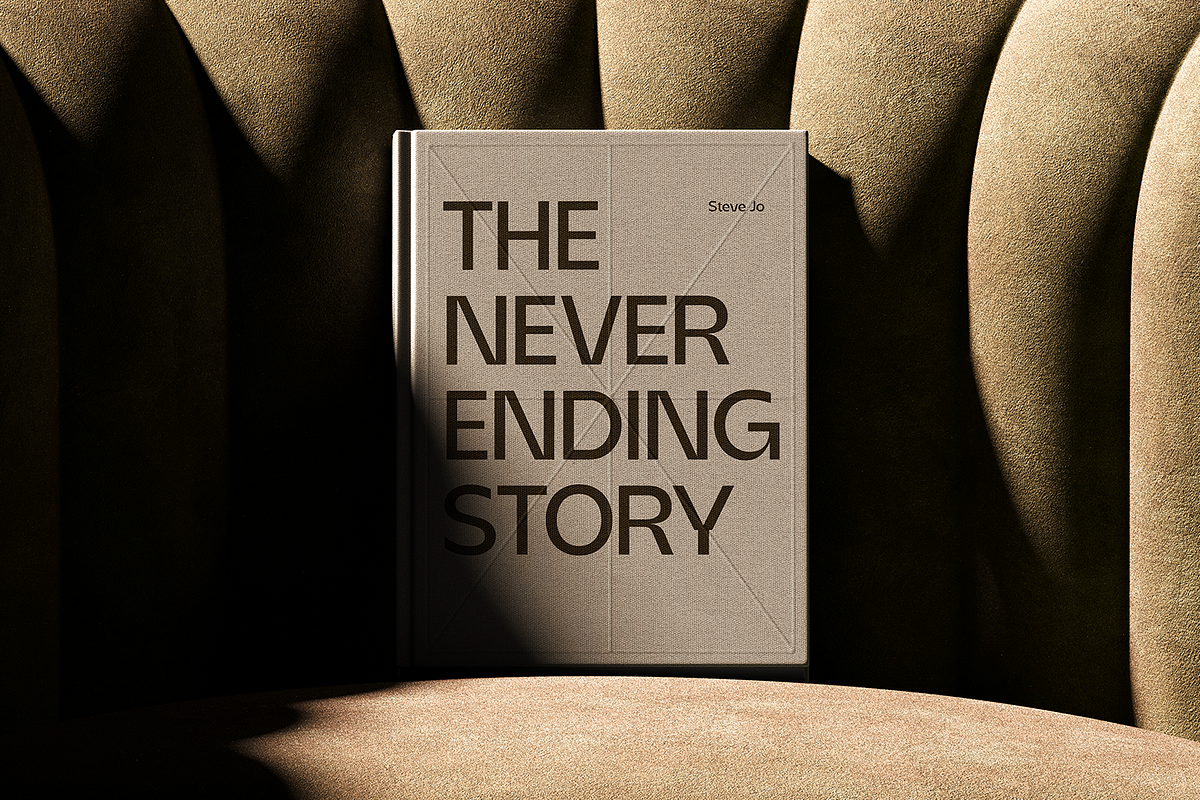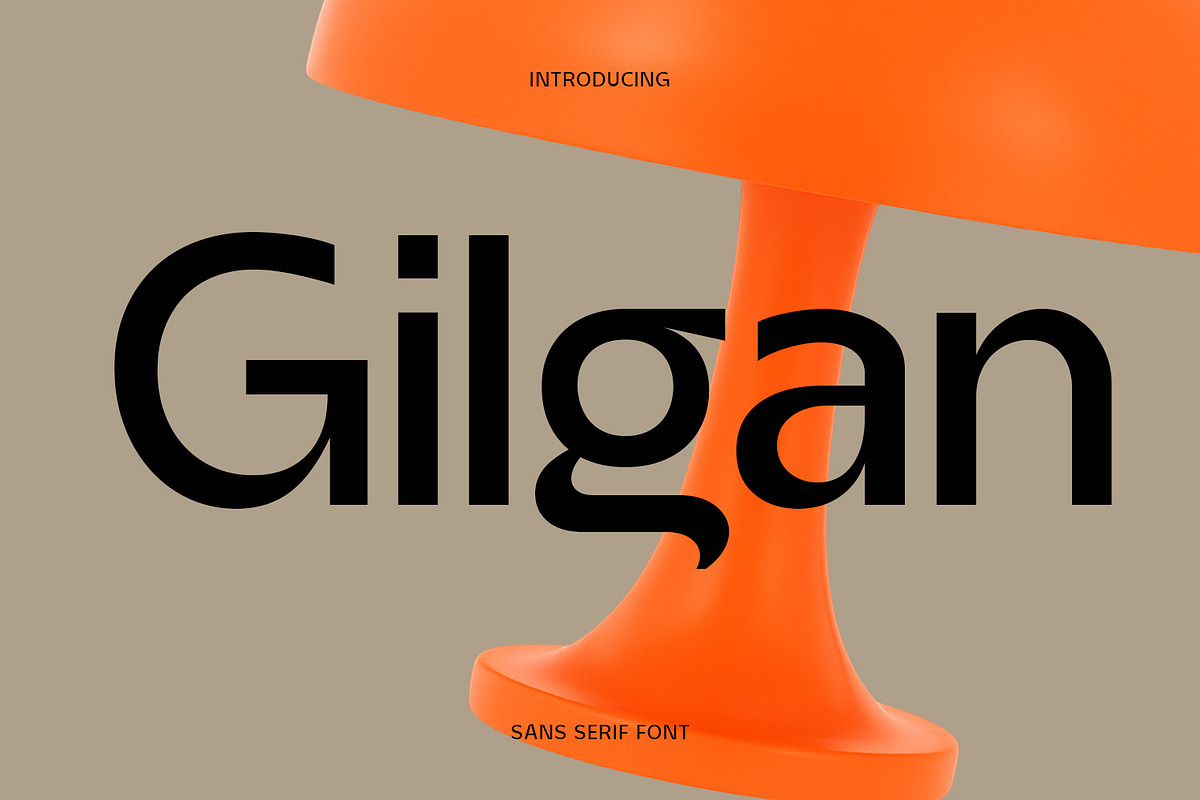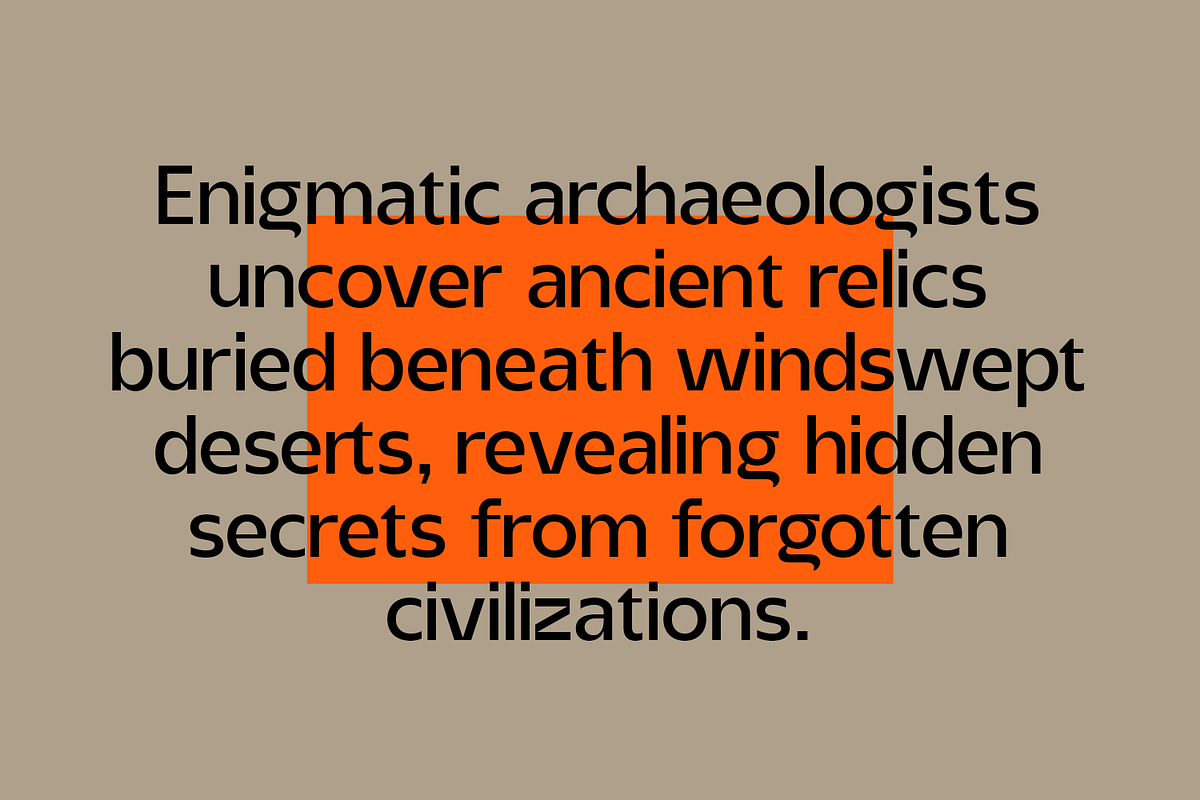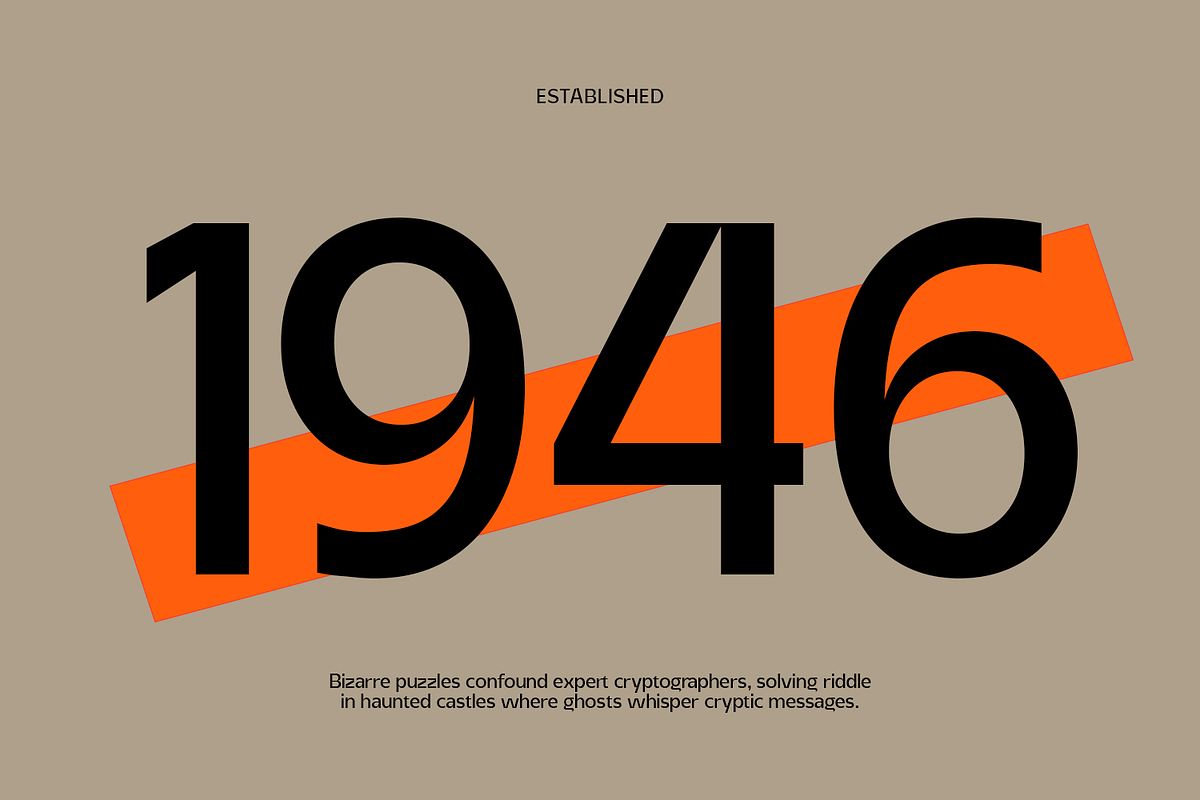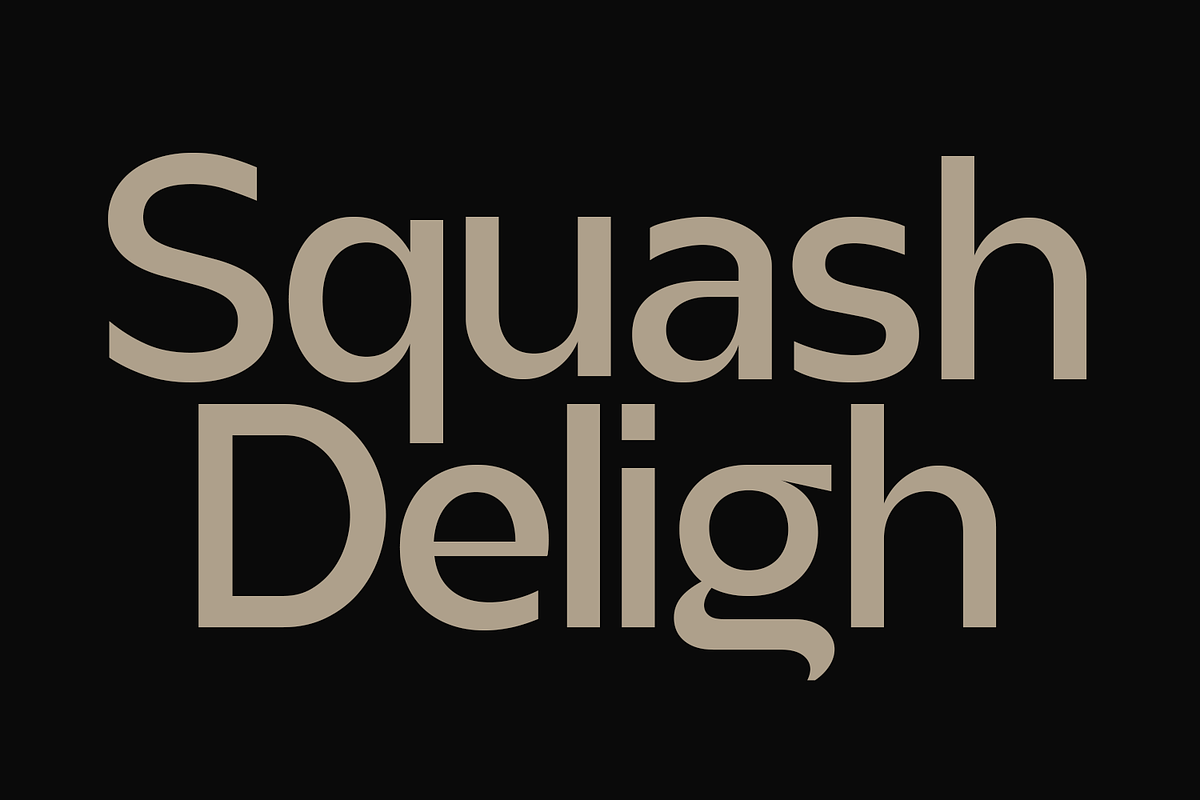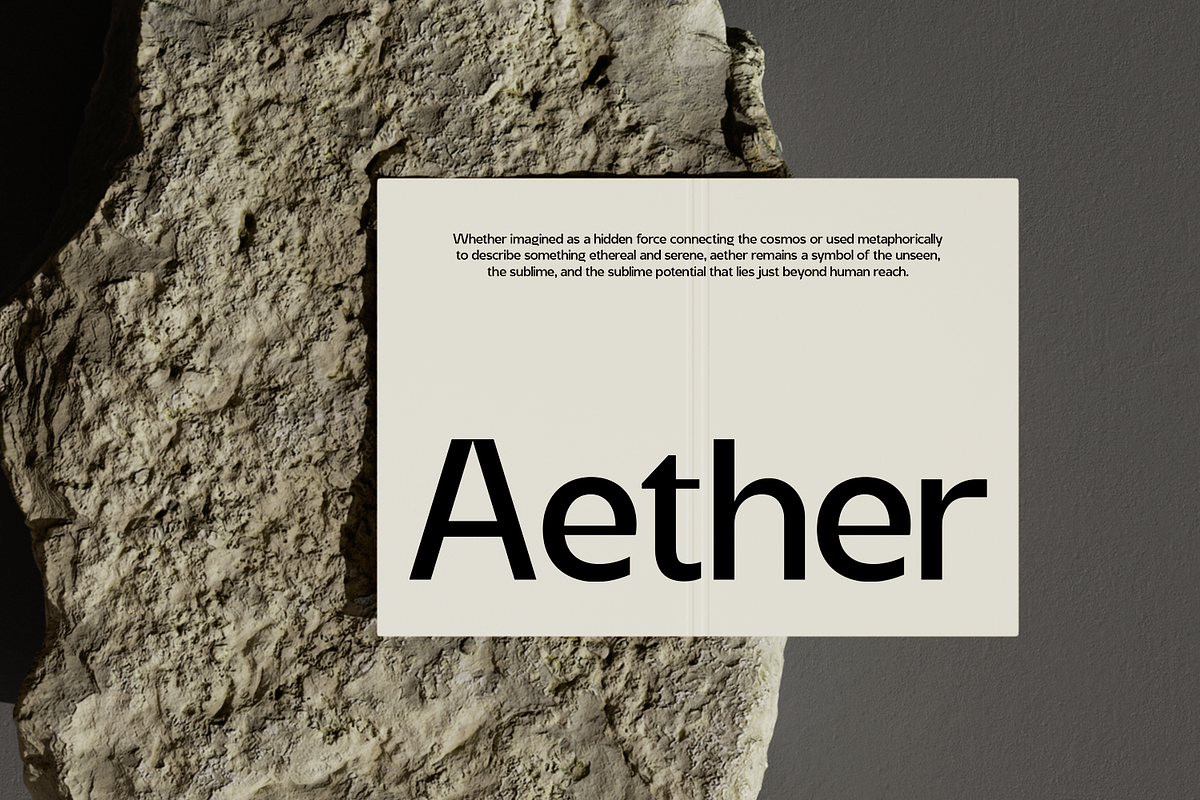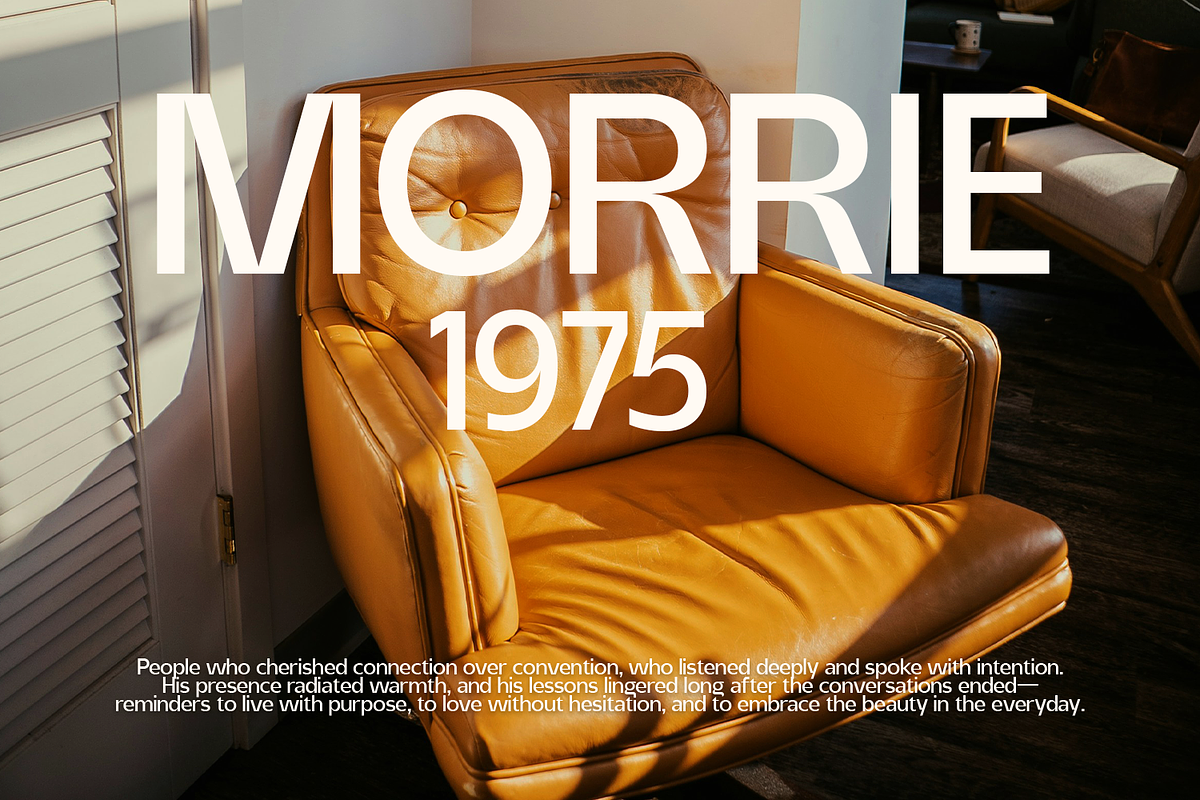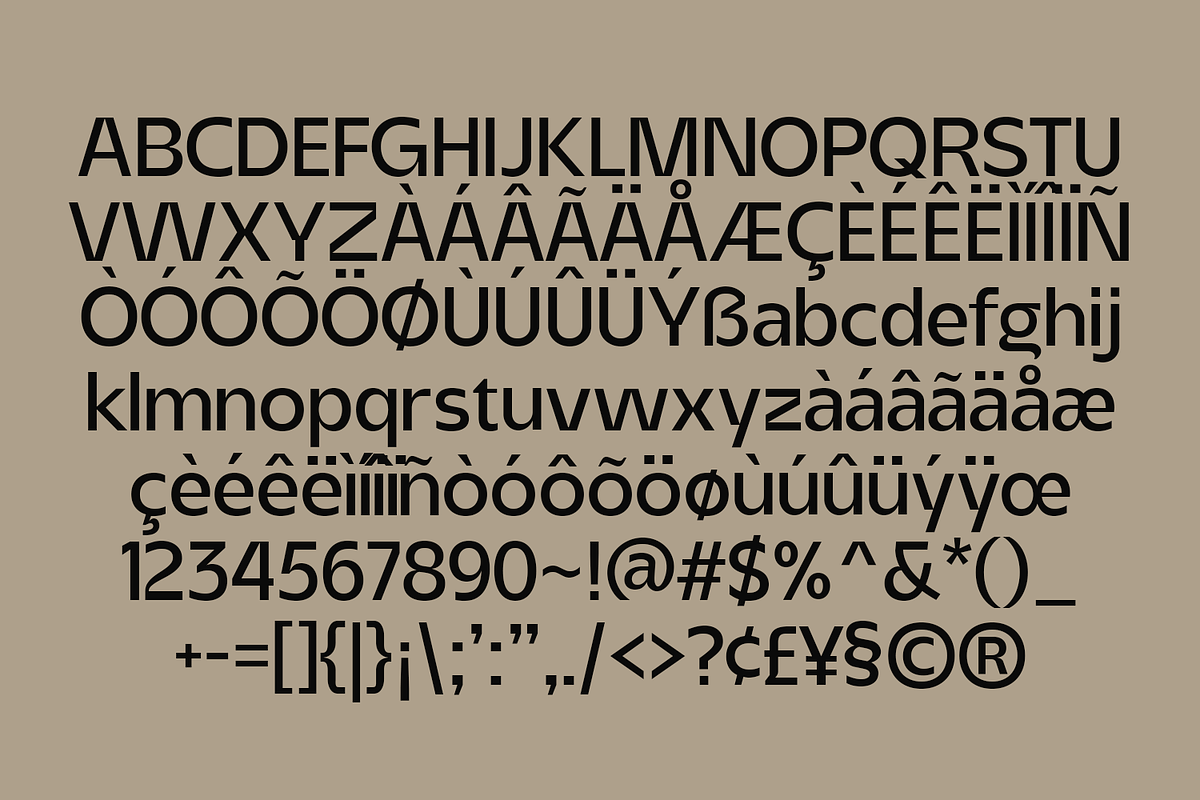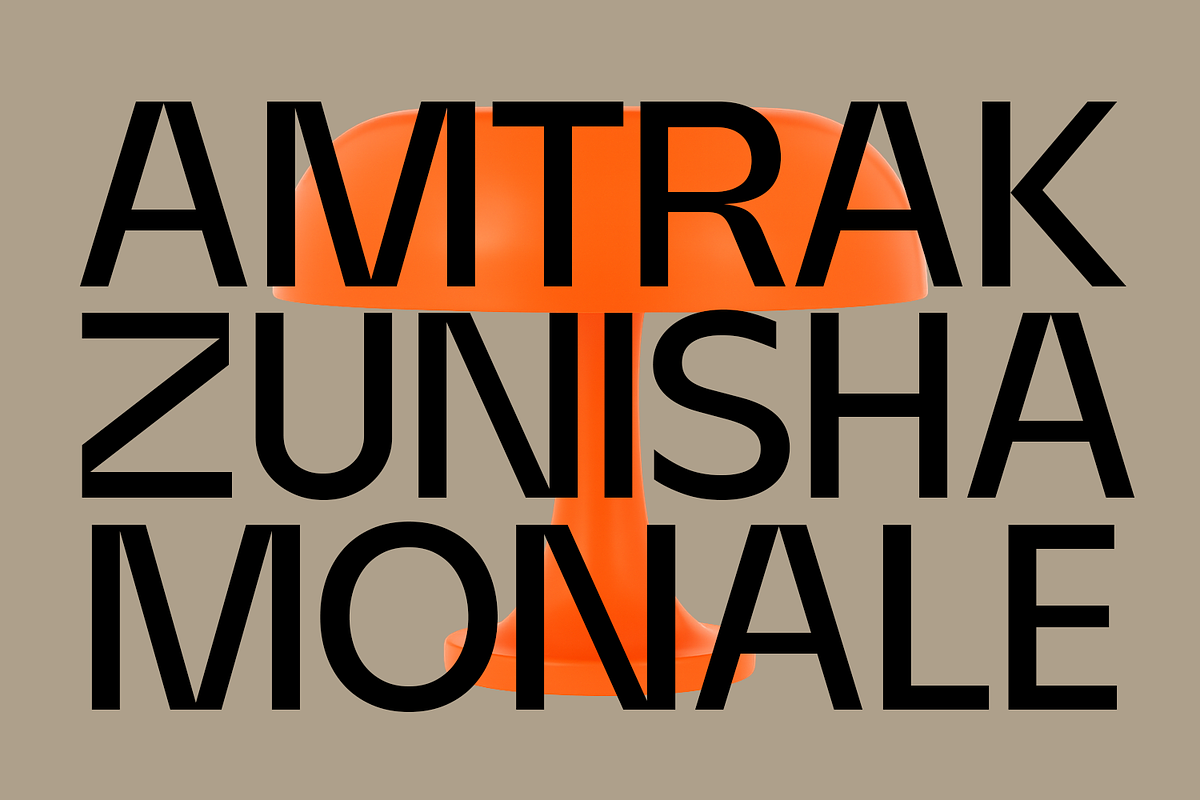
Gilgan - Modern Sans
Gilgan, a modern sans serif font crafted for bold thinkers and clean aesthetics. Gilgan is designed to blend clarity and personality—its sleek structure and subtle curve details make it perfect for branding, editorial design, web interfaces, and minimalist packaging. It captures attention without shouting, making it a go-to typeface for creatives who want to look sharp, modern, and effortlessly stylish.
With strong verticals, generous counters, and just a touch of geometric flair, Gilgan walks the line between professionalism and play. Whether you're designing logos or crafting headlines, Gilgan gives your message a voice that's confident, accessible, and visually balanced.